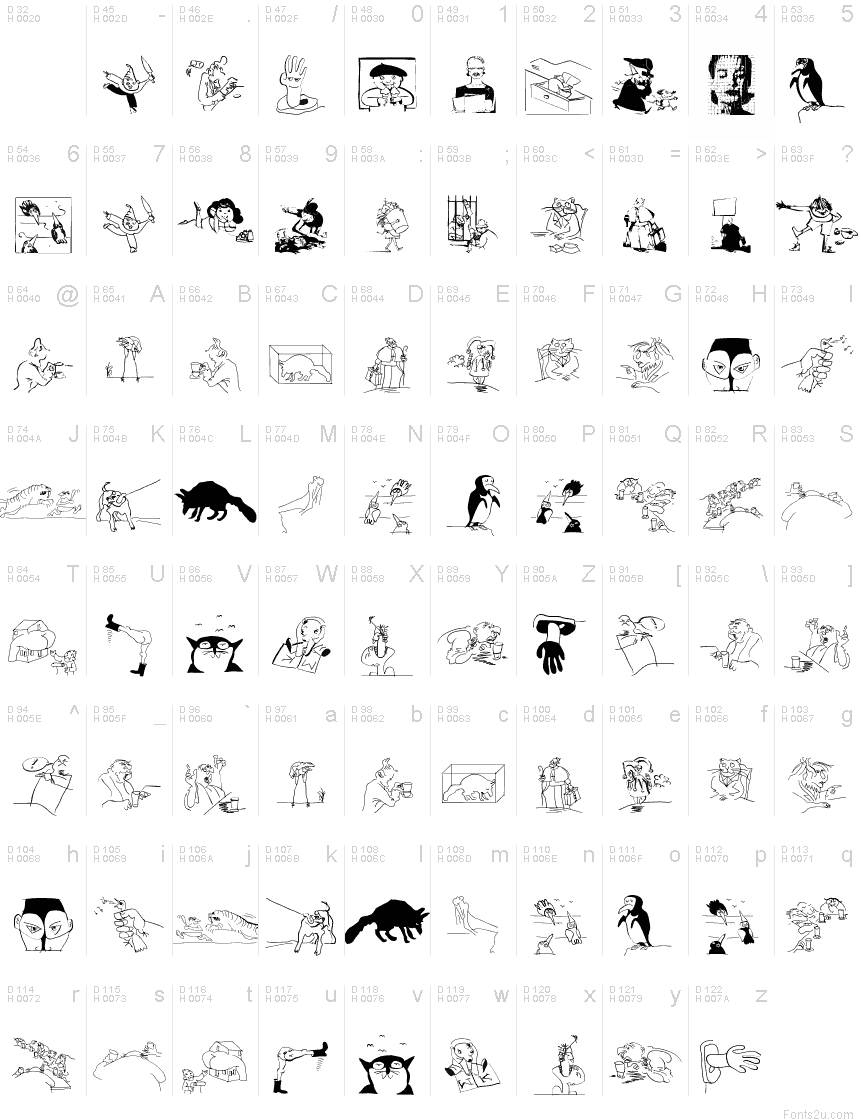
LastWit by M Klein is a free cartoon dingbat font built from hand-drawn scenes and figures. Its mix of solid animal silhouettes and wiry line illustrations gives the collection an offbeat sketchbook quality.
The pictorial characters can become artwork in comic posters and children's publishing, not just ordinary lettering. They also suit humorous merchandise and event graphics. Recurring animals, people, houses, and loose landscape details make each symbol useful as a miniature narrative accent.